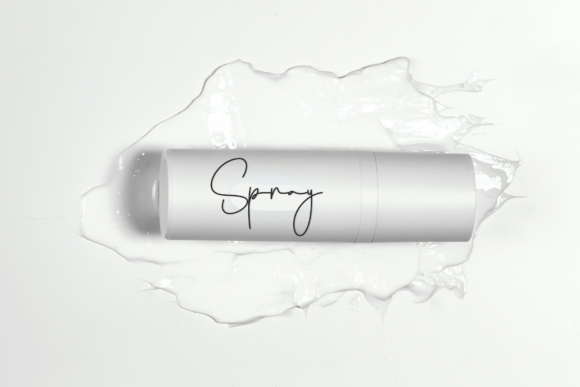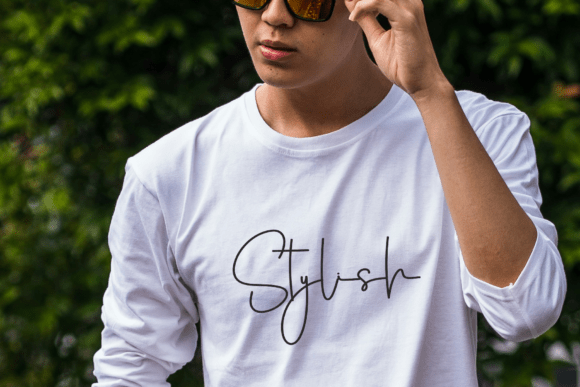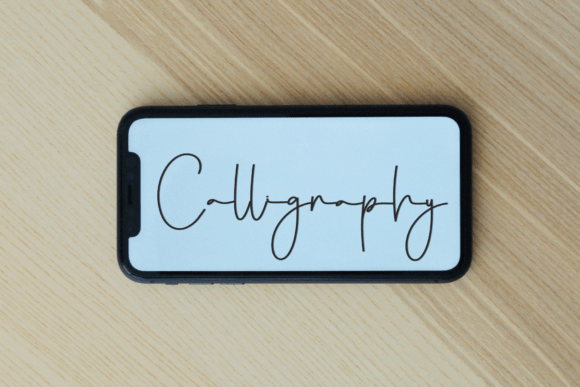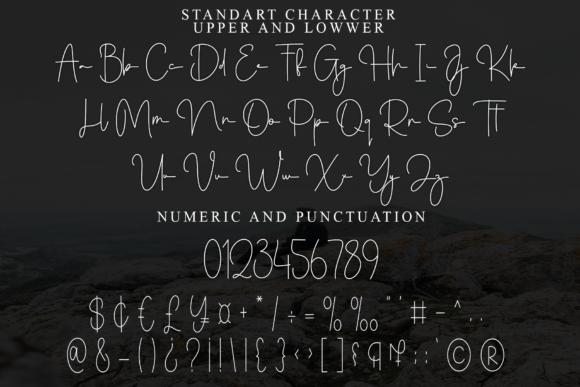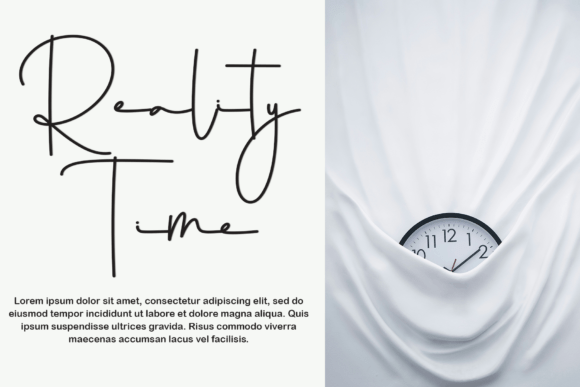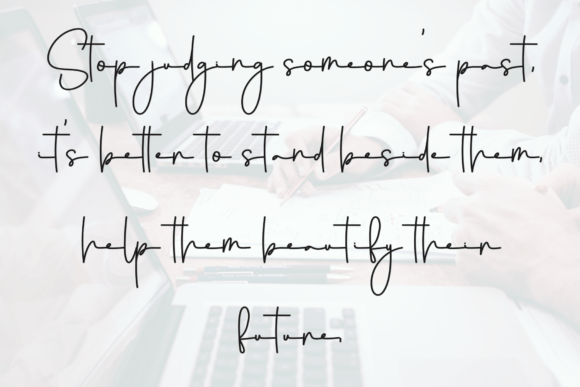
Deck the Halls with Adelia Signature Font
It’s the most wonderful time of the year – and I’m not just talking about the holiday cookies (although, let’s be real, they’re a close second)! As designers, we’re often tasked with creating festive and fun projects that capture the spirit of the season. I recall a particularly stressful design session where I was working on a holiday greeting card project, and I just couldn’t seem to find the perfect font. That was until I stumbled upon Adelia Signature – a game-changing, festive typeface that instantly brought my design to life!
A Festive Design Solution
Adelia Signature is a decorative font that embodies the magic of the holiday season. With its whimsical flair and enchanting elements, it’s perfect for adding a touch of nostalgia and cheer to your designs. Whether you’re working on greeting cards, gift tags, or holiday-themed projects, this font is sure to make your typography shine.
What I Love About Adelia Signature
- ✨ Festive and fun: Adelia Signature is the perfect font for holiday designs, with a playful and cheerful vibe that’s sure to put a smile on your face.
- 🎉 Versatile: Adelia Signature is perfect for a variety of design projects, from greeting cards and gift tags to holiday-themed posters and social media graphics.
While Adelia Signature is an amazing font, there are a few things to keep in mind:
- ⚠️ Legibility at small sizes: As with many decorative fonts, Adelia Signature may not be the best choice for body text or small font sizes. It’s best used for headlines or titles where you want to make a statement.
- 🤔 Limited use outside of holidays: Let’s face it – Adelia Signature is a highly seasonal font. While it’s perfect for holiday designs, it may not be the best choice for other types of projects.
The Story Behind Adelia Signature
Adelia Signature was designed with the holiday season in mind. The designer wanted to create a font that captured the magic and wonder of the holidays, with a focus on whimsical elements and a playful, festive vibe. The result is a font that’s perfect for adding a touch of enchantment to your designs.
| Q: What is Adelia Signature? | A: Adelia Signature is a festive and merry typeface that’s perfect for holiday designs. |